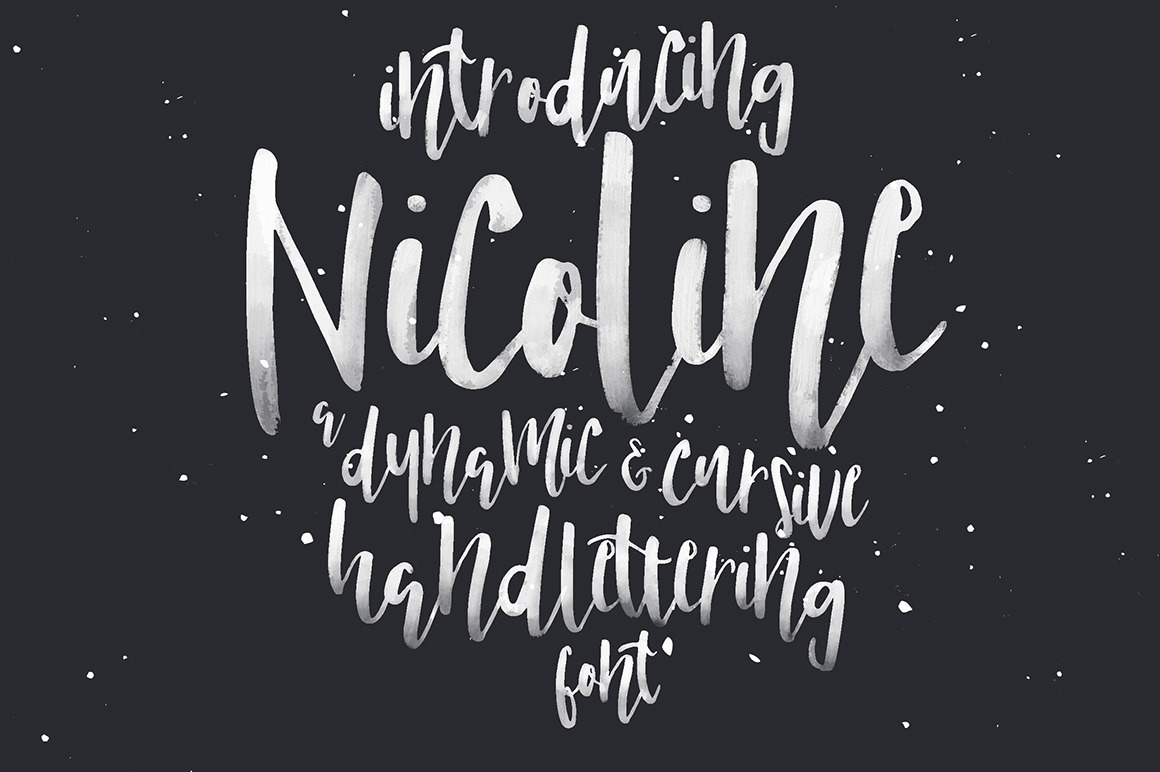
Nicoline Script Font
Nicoline Script Font is perfect for romantic wedding stationery, luxury perfume branding, feminine fashion boutiques, elegant jewelry packaging, premium beauty salon materials, sophisticated greeting cards, upscale floral design businesses, intimate restaurant menus, delicate pastry shop signage, and refined lifestyle blogging. This graceful script typeface excels in applications where feminine elegance, romantic sophistication, and delicate beauty are fundamental design elements.
Nicoline Script Font is exciting because it embodies the essence of refined femininity and romantic elegance through its flowing letterforms and delicate flourishes that capture the grace of handwritten calligraphy. Its sophisticated curves feature gentle ascenders, graceful connections, and organic rhythm that create a sense of intimate luxury and personal refinement. The font's handcrafted appearance delivers authentic elegance while maintaining professional readability across various applications from delicate invitations to sophisticated brand communications.
The Nicoline Script Font family includes Regular, Bold, and Light weights, plus an extensive collection of stylistic alternates, swashes, and decorative elements that enhance its romantic character. The family features over 180 stylistic alternates, contextual ligatures, beginning and ending swashes, and ornamental flourishes including floral motifs and delicate borders. Multiple language support ensures versatility for international luxury brands and romantic occasions worldwide.
Professional designers choose Nicoline Script Font for its ability to convey romantic luxury, feminine sophistication, and intimate elegance in premium brand communications. The font's graceful personality works magnificently in both large display applications and delicate text settings where personal touch is paramount. Its versatile nature makes it suitable for luxury beauty brands, romantic event planning, and sophisticated lifestyle companies seeking authentic feminine appeal.
The romantic elegance of Nicoline Script Font elevates brand communications with its delicate grace and sophisticated femininity. Its authentic handcrafted appearance speaks to discerning audiences seeking romantic luxury and refined beauty while maintaining the professional standards required for high-end commercial applications.
Embrace romantic sophistication with Nicoline Script Font and discover why luxury beauty brands and elegant lifestyle companies worldwide choose this exceptional typeface for their most refined and romantically inspiring design communications.